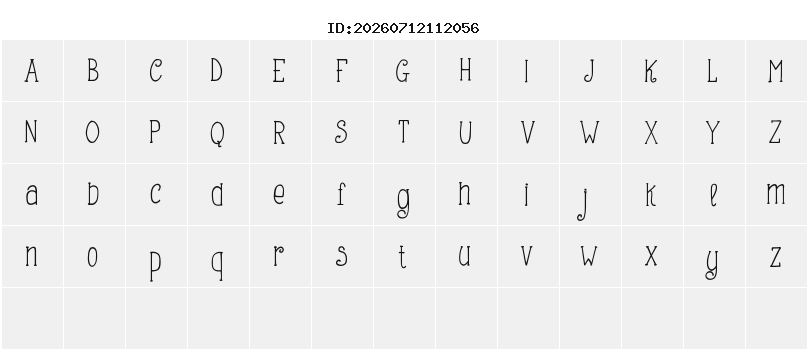
• Font Name: Making Lettering Tall_demo
• Designer: Fontscafe.com
About Making Lettering Tall_demo.ttf
Making Lettering Tall_demo.ttf is a modern, elegant sans-serif font designed for ultimate readability and visual harmony. Perfect for branding, headlines, web design, and print materials.